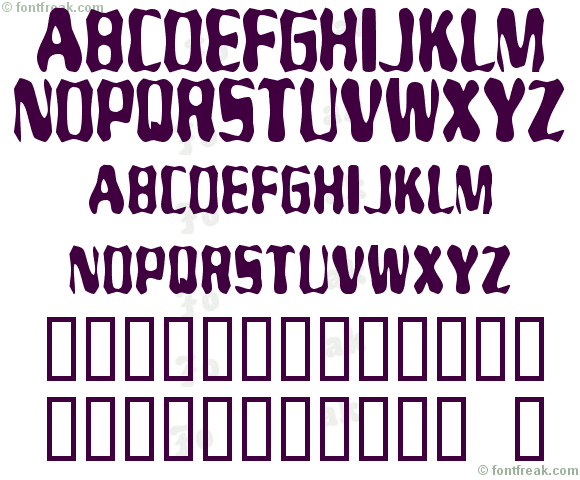
Mayaku
About Mayaku
Introducing the Mayaku font by Statica Productions, a distinctive display typeface that captures attention with its unique character. This freeware font features bold, playful letters with a slightly irregular shape, making it ideal for a variety of creative applications. The Mayaku font is categorized as a decorative typeface, characterized by its thick stroke weight and minimal contrast, giving it a robust and engaging presence. The spacing is generous, allowing for clear readability while maintaining a fun aesthetic that draws the eye.
The visual style of Mayaku is marked by its hand-drawn quality, which can add a whimsical touch to your designs. The playful curves and exaggerated forms of the letters lend themselves well to a range of use cases. Consider using the Mayaku font for vibrant wedding invitations that need a touch of personality, eye-catching movie posters that aim to evoke excitement, or trendy restaurant menus that showcase a fun dining experience. Additionally, this font can be a great choice for social media graphics aimed at younger audiences or promotional materials for creative businesses looking to stand out.
Targeted toward graphic designers, small business owners, and content creators, the Mayaku font provides an accessible option that enhances visual storytelling while remaining free to use. Its unique character allows for creative expression that resonates with audiences across various platforms. The Mayaku font free download makes it easy for designers to incorporate this playful typeface into their work, ensuring that every project has a memorable touch. In a crowded digital landscape, Mayaku stands out for its ability to combine fun with functionality, making it a versatile asset for any design toolkit.